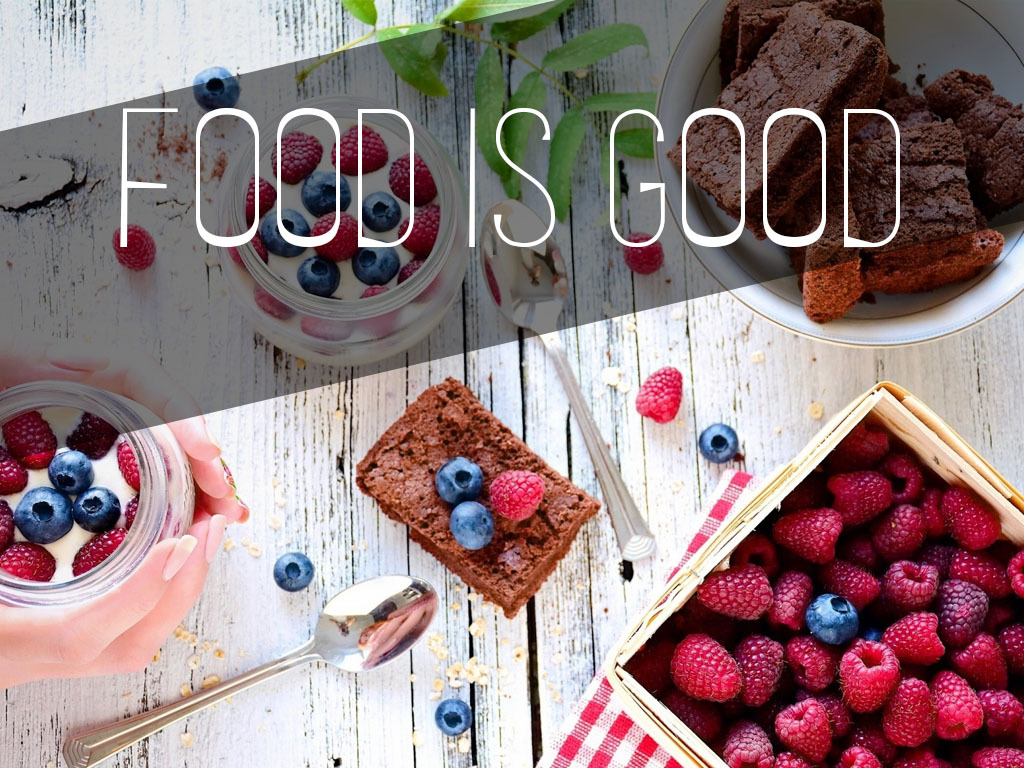
Hippie Font - Type Light
Hippie Light is a new font Style from Fontoloyo, its a new style light font for your concept, basic with sans & you got font like style in other century.